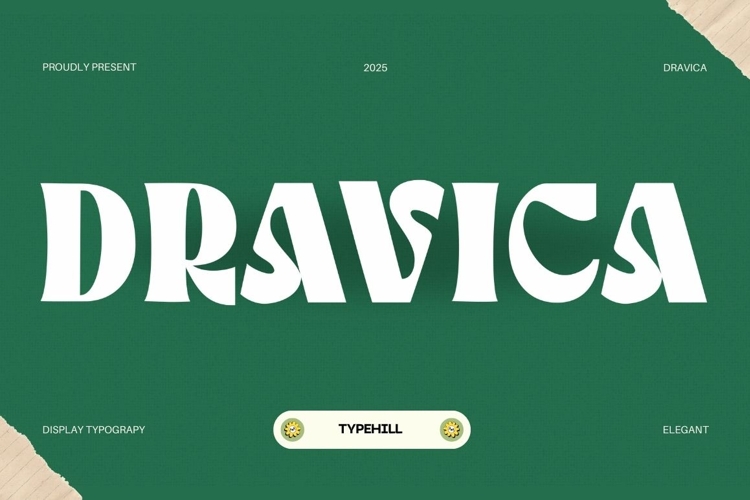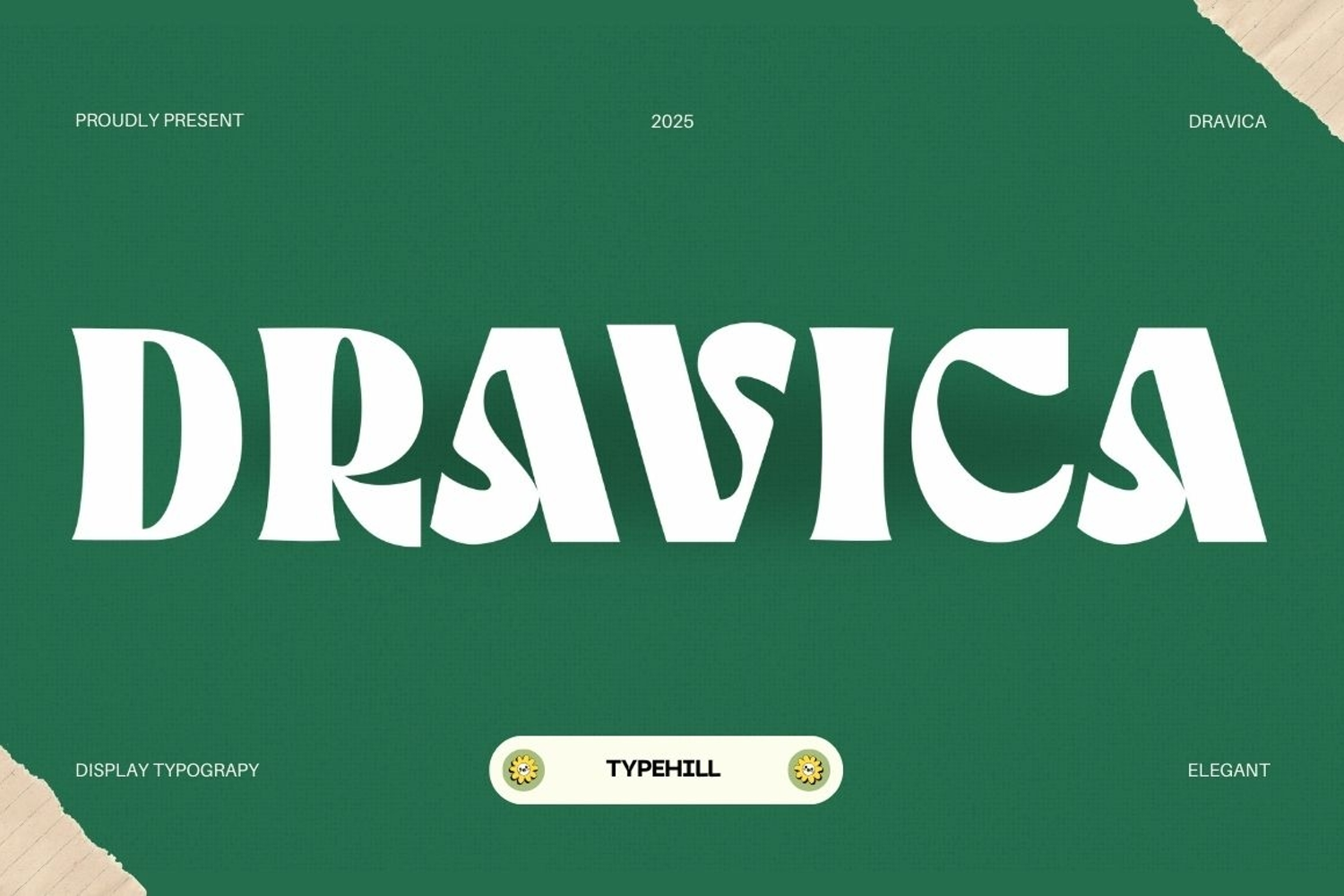
Dravica is a bold display sans serif designed to make a strong statement. With clean lines and modern proportions, it delivers a striking presence that works perfectly for headlines, posters, branding, and digital use.
Although designed as a display typeface, Dravica maintains excellent legibility, allowing it to shine both in large titles and impactful short texts.
Supporting multiple languages, Dravica is a versatile choice for designers who need a powerful and contemporary font with a confident personality.